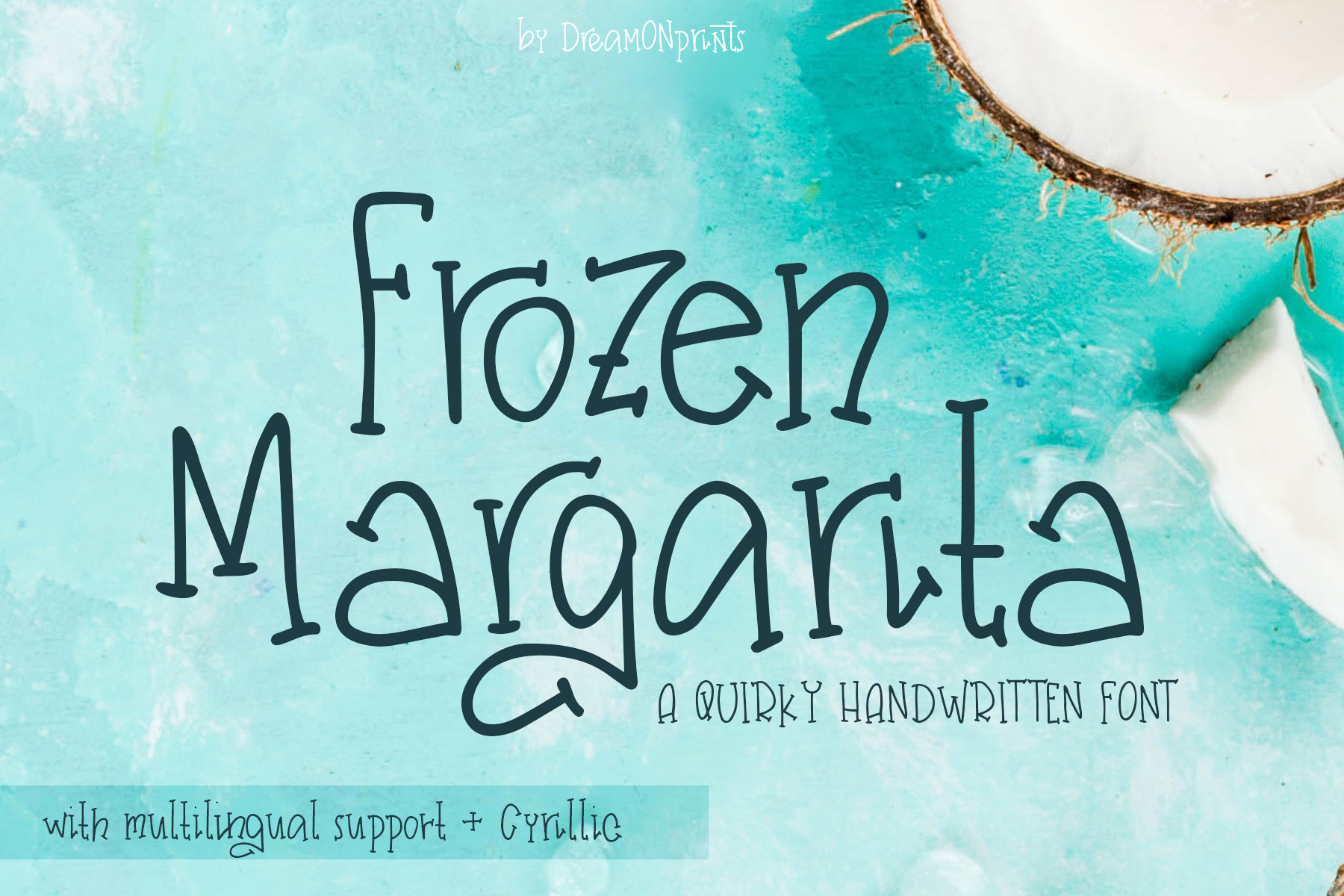
Frozen Margarita - Handwritten Font
"Frozen Margarita" is a quirky handwritten font.
Frozen Margarita comes with 303 glyphs. The alternative characters were divided into several Open Type features - Alternates, Discretionary and Contextual Ligatures. The Open Type features can be accessed by using Open Type savvy programs such as Adobe Illustrator, Adobe InDesign, Adobe Photoshop, Corel Draw X version. This Font Duo has PUA unicode so all the alternative characters can be accessed in Cricut and Silhouette too.
This font supports Western European and Cyrillic languages